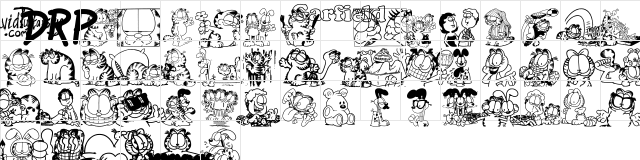
Garfield Hates Mondays Loves Fonts Regular
Design Context for Garfield Hates Mondays Loves Fonts Typeface
Garfield Hates Mondays Loves Fonts is a composed and adaptable typeface that performs quietly and consistently across a wide range of design contexts.
Pro Tip: Use Garfield Hates Mondays Loves Fonts in both headline and body roles to test its range before committing to a single application.